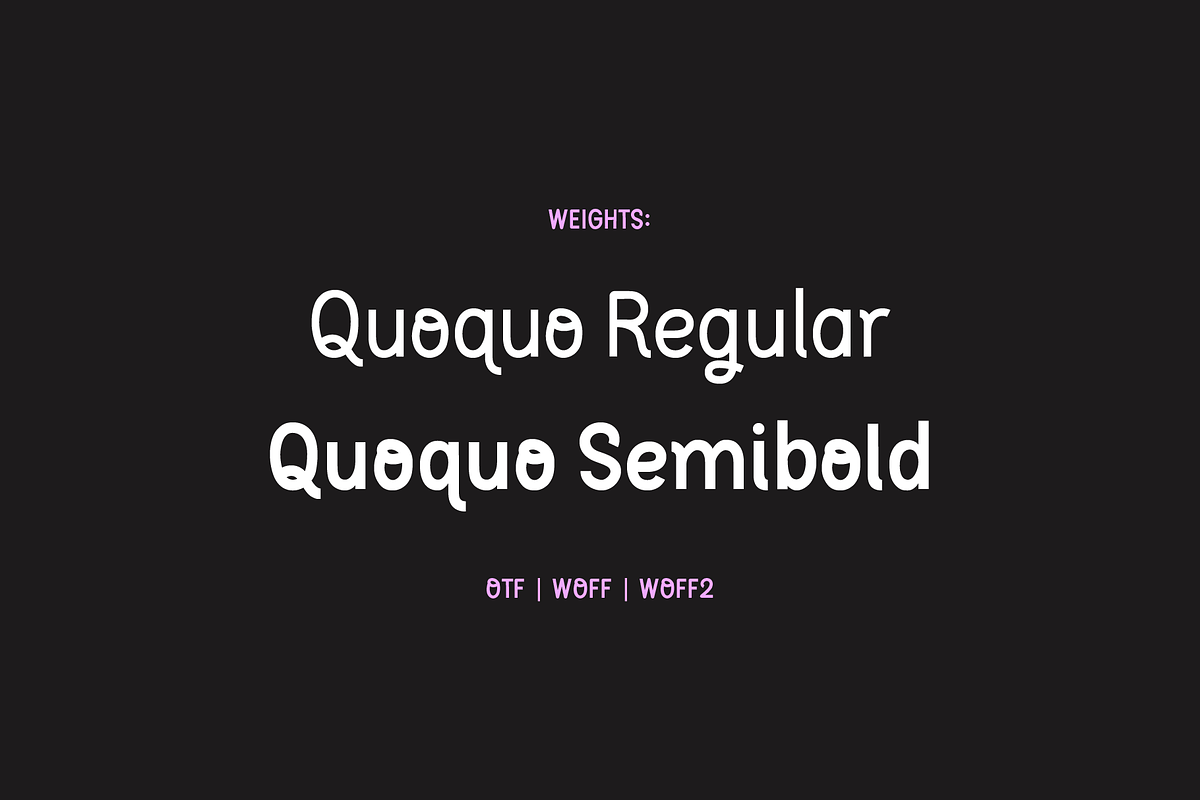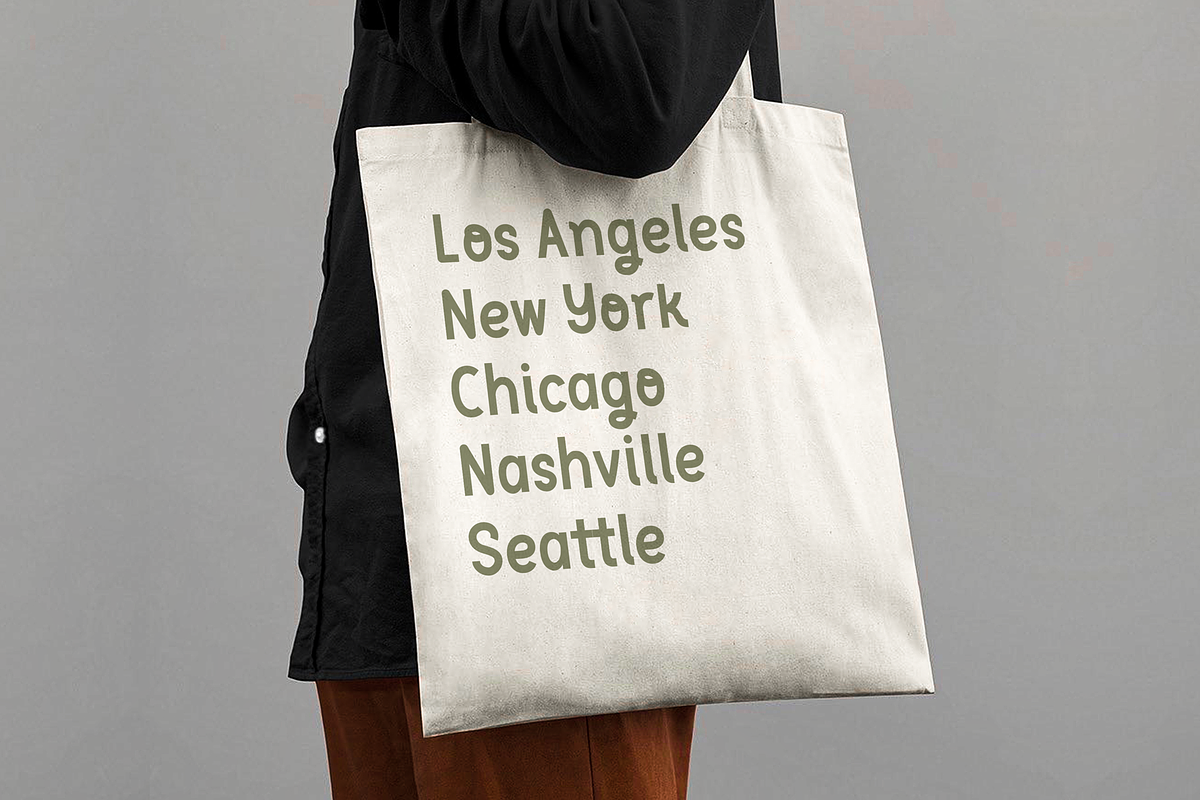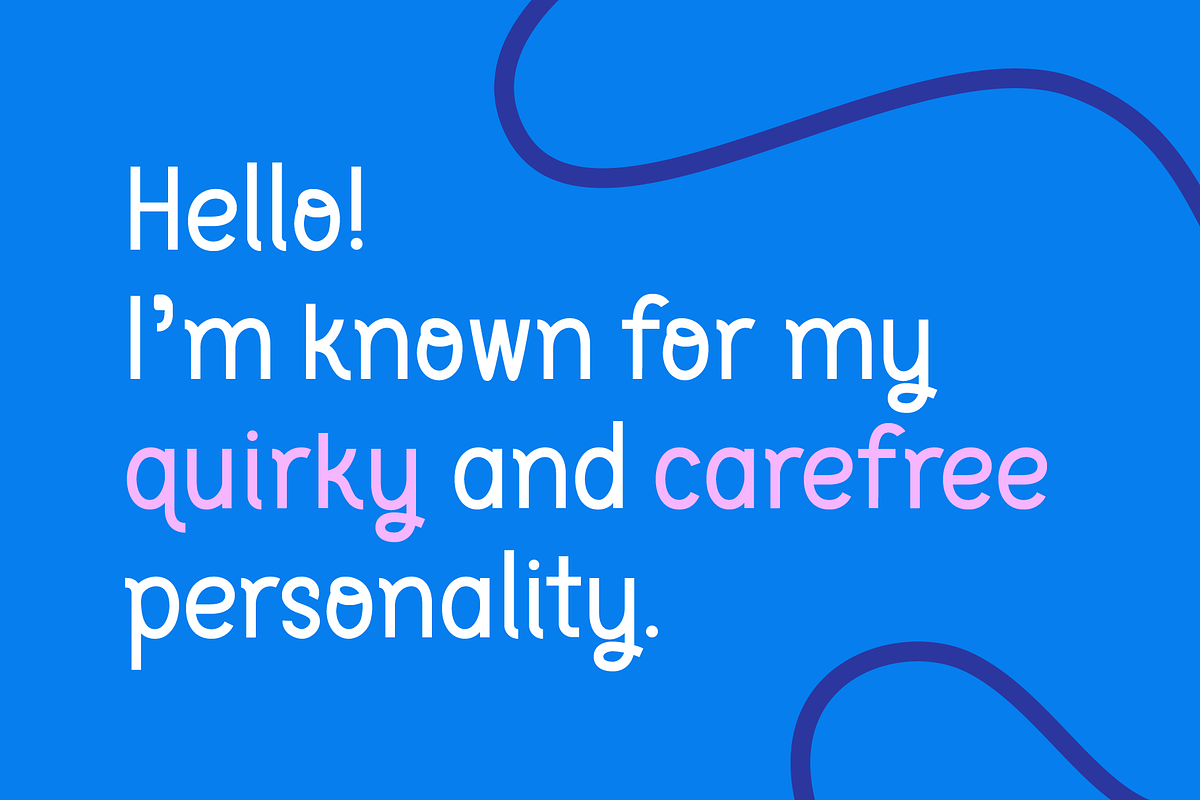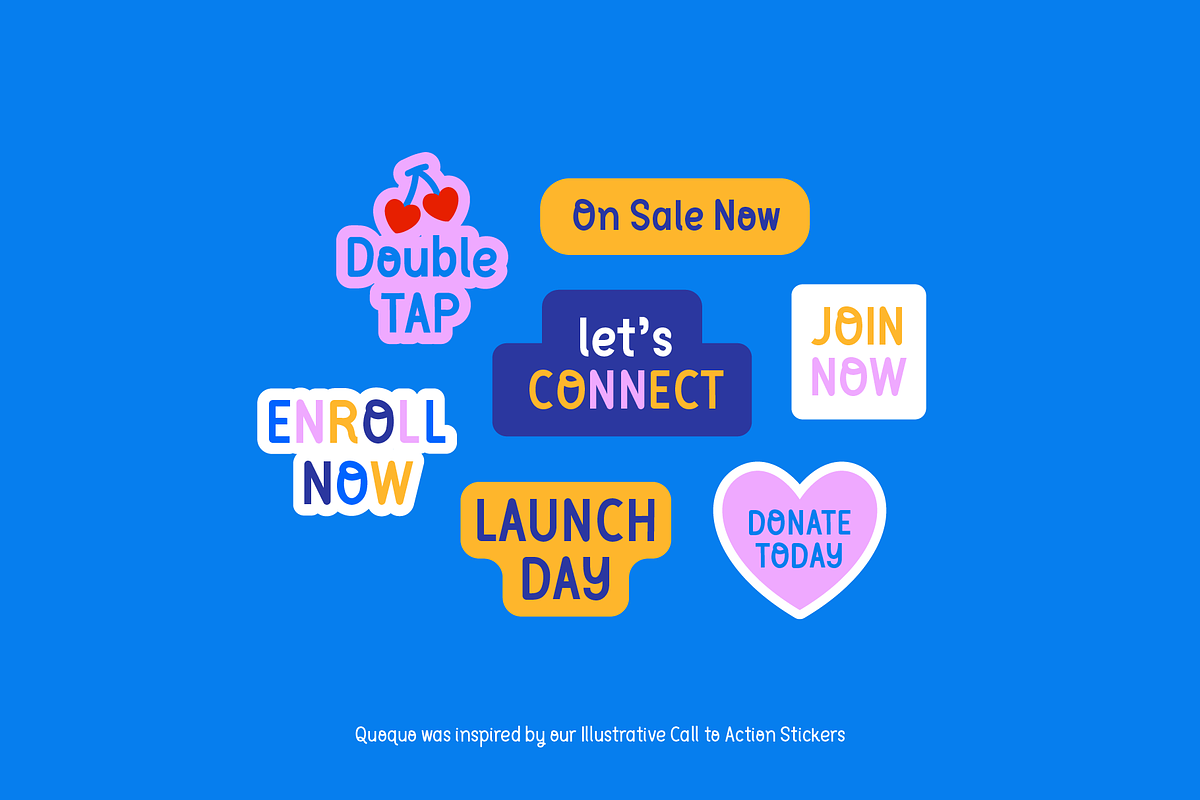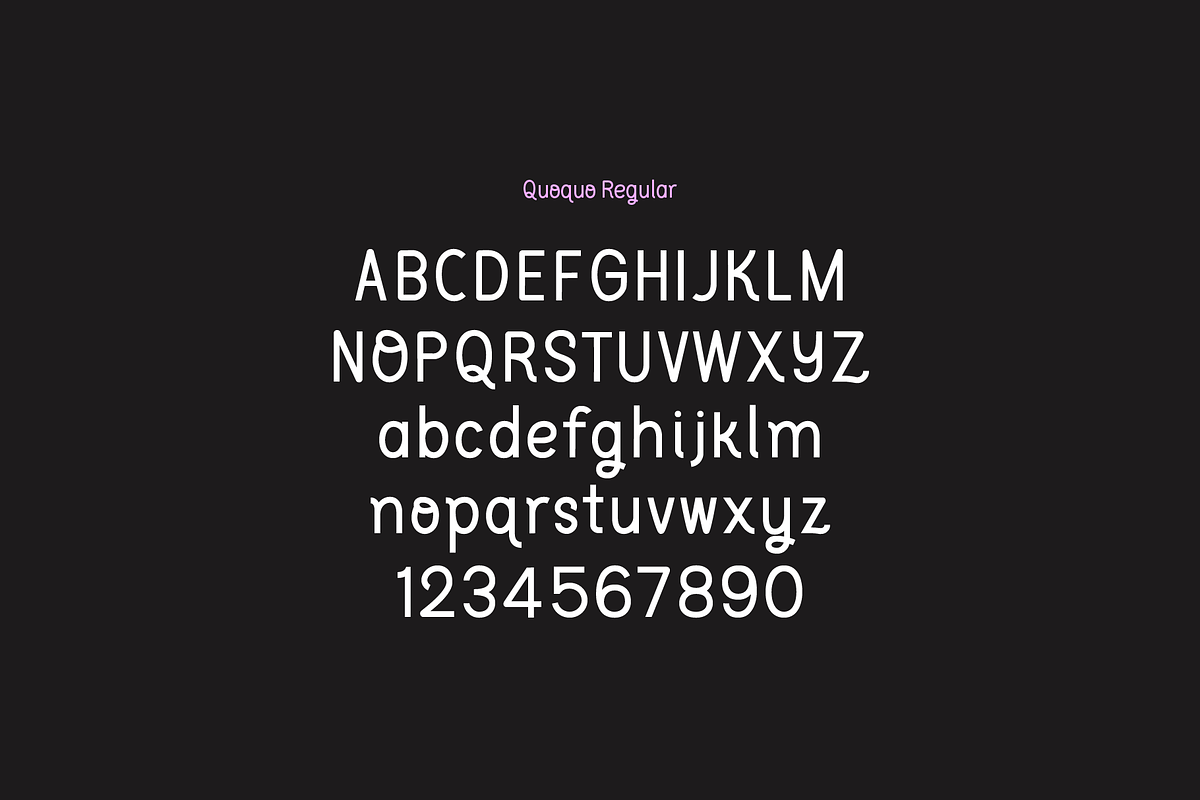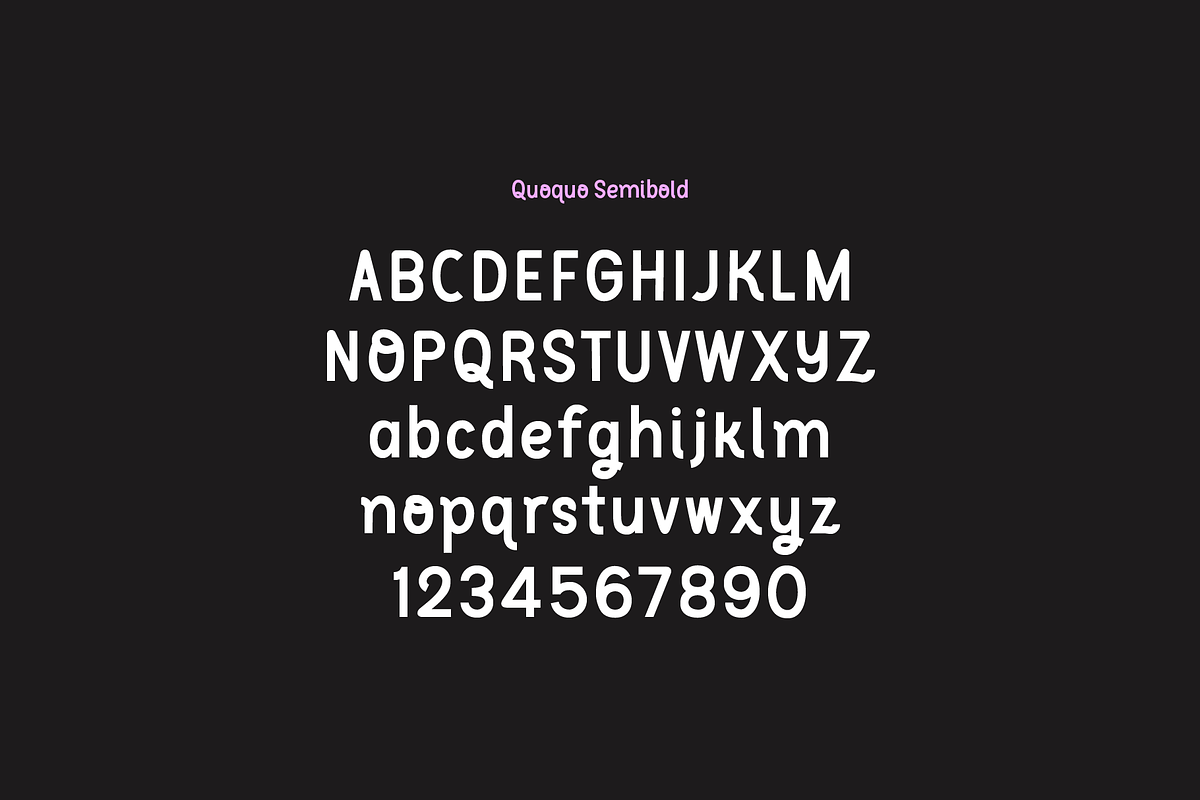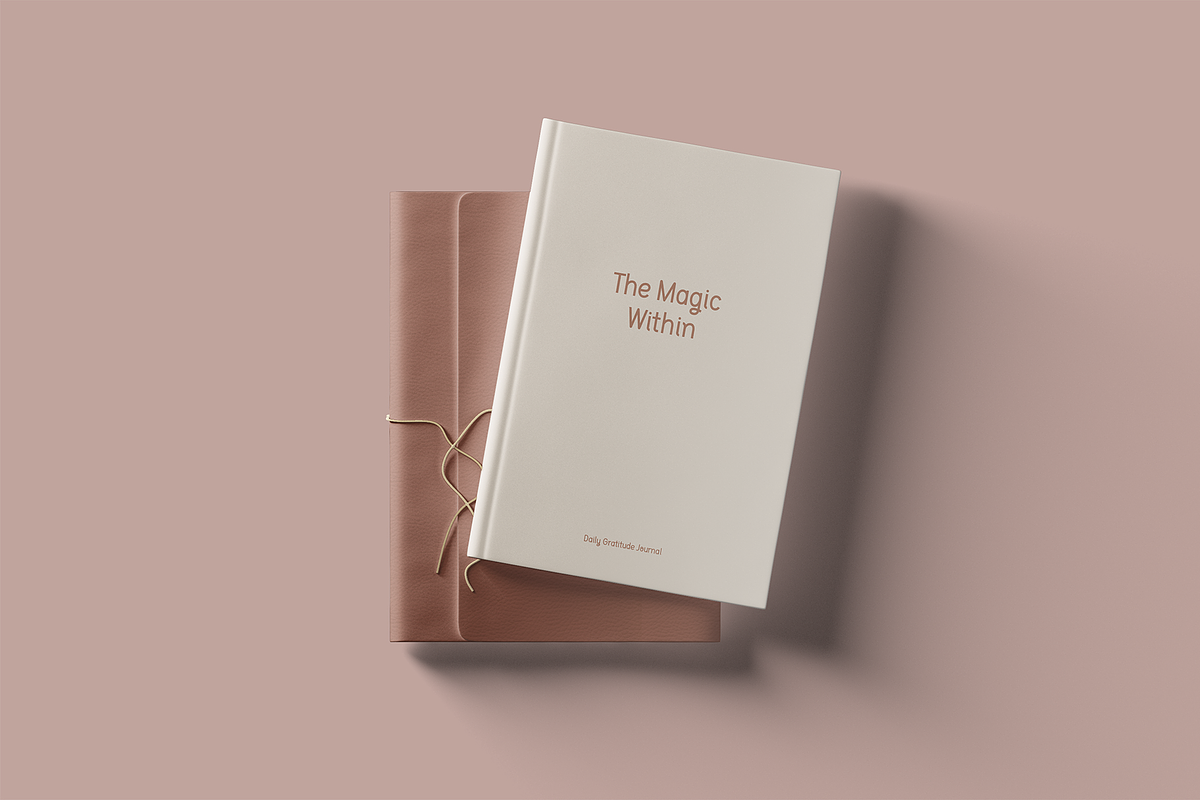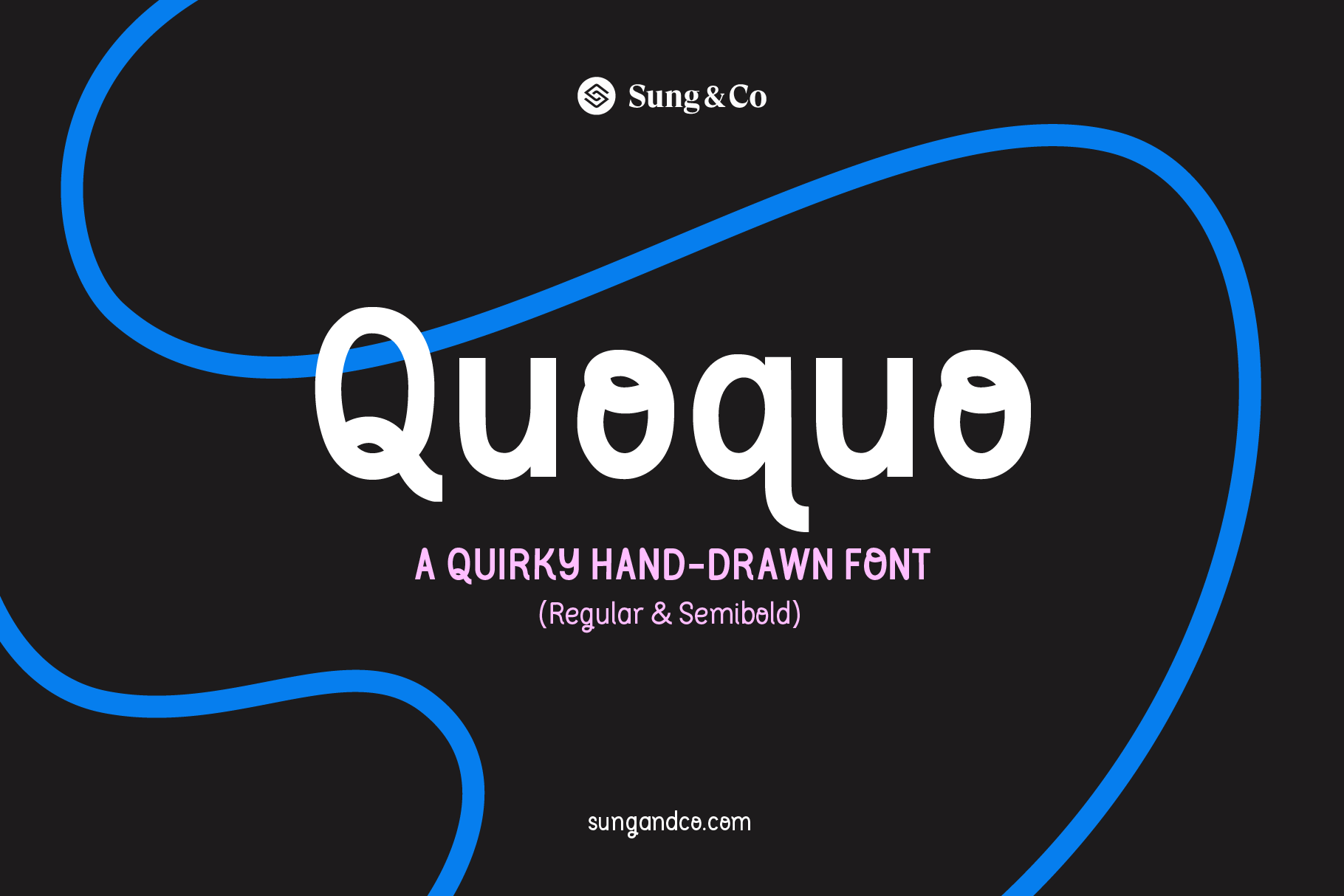
Quoquo Font
Introducing Quoquo — a quirky, whimsical hand-drawn font born from our Illustrative Call to Action Stickers. This font has a playful personality with loops in the O’s and includes two styles, Regular and Semibold. Adding such a unique font to your branding and creative projects will give it a fun, unique touch.